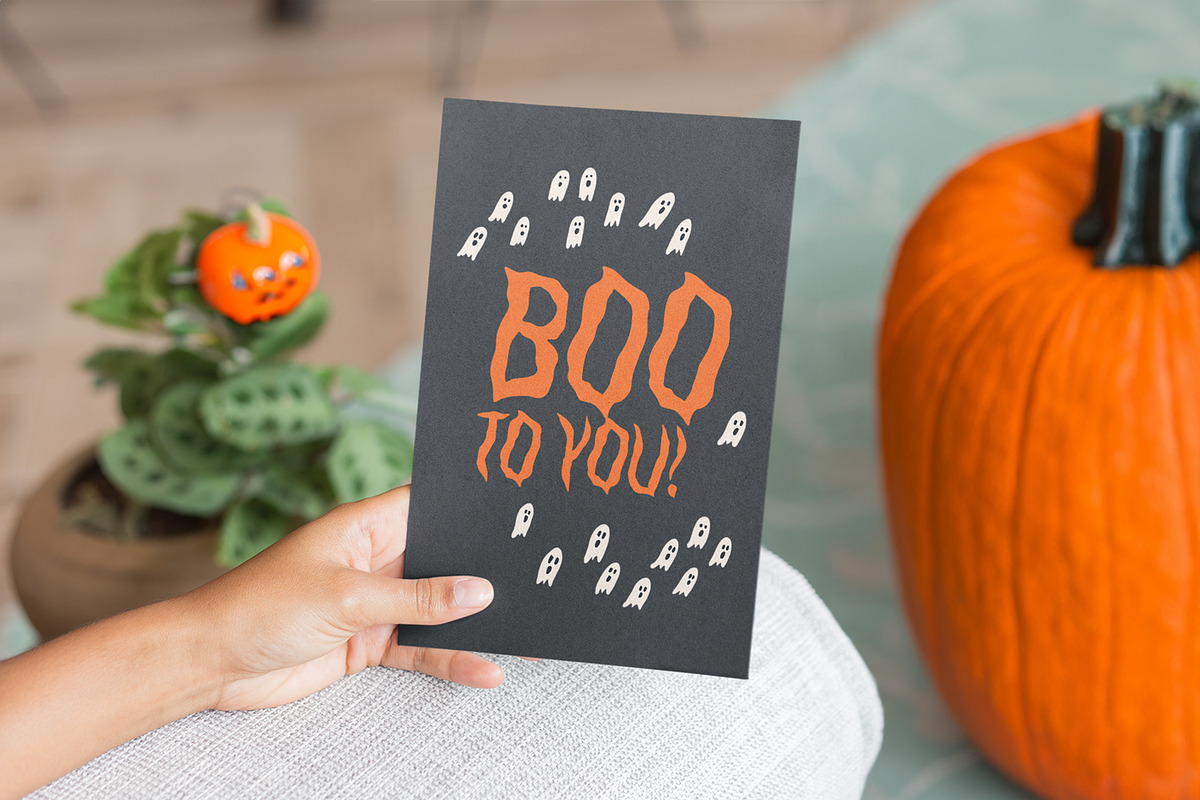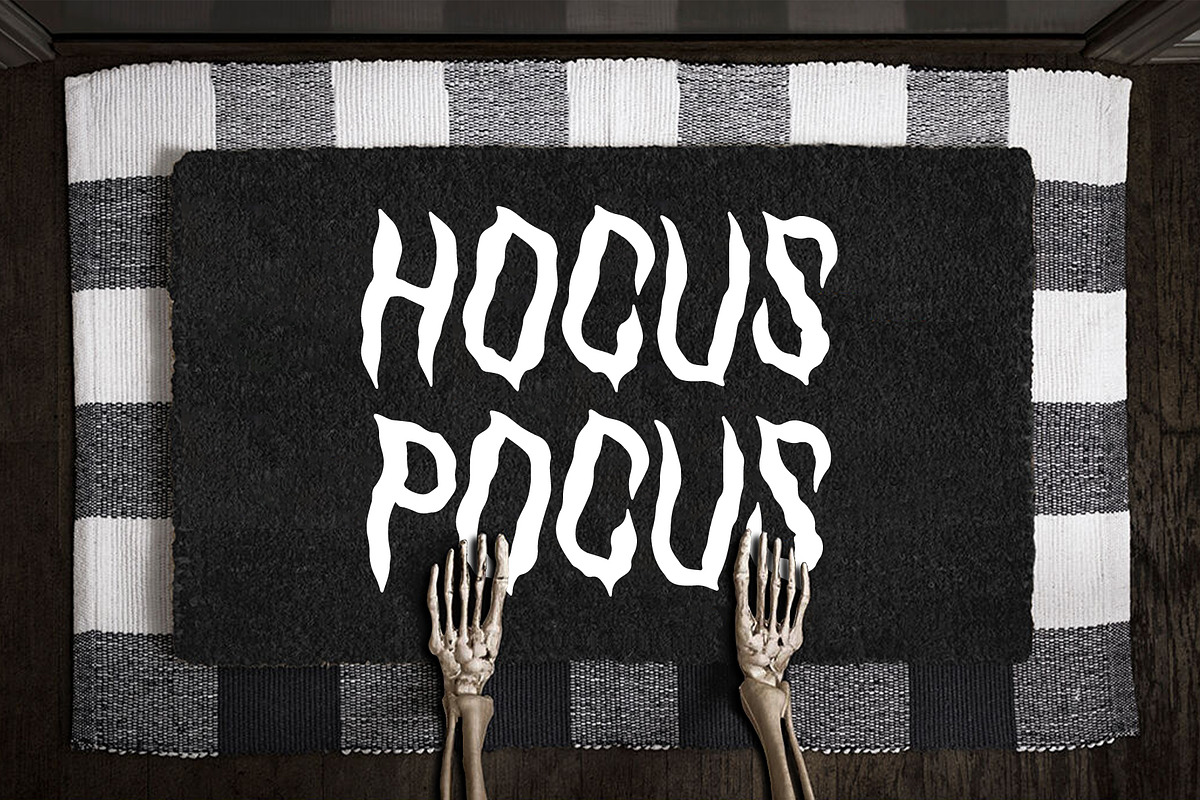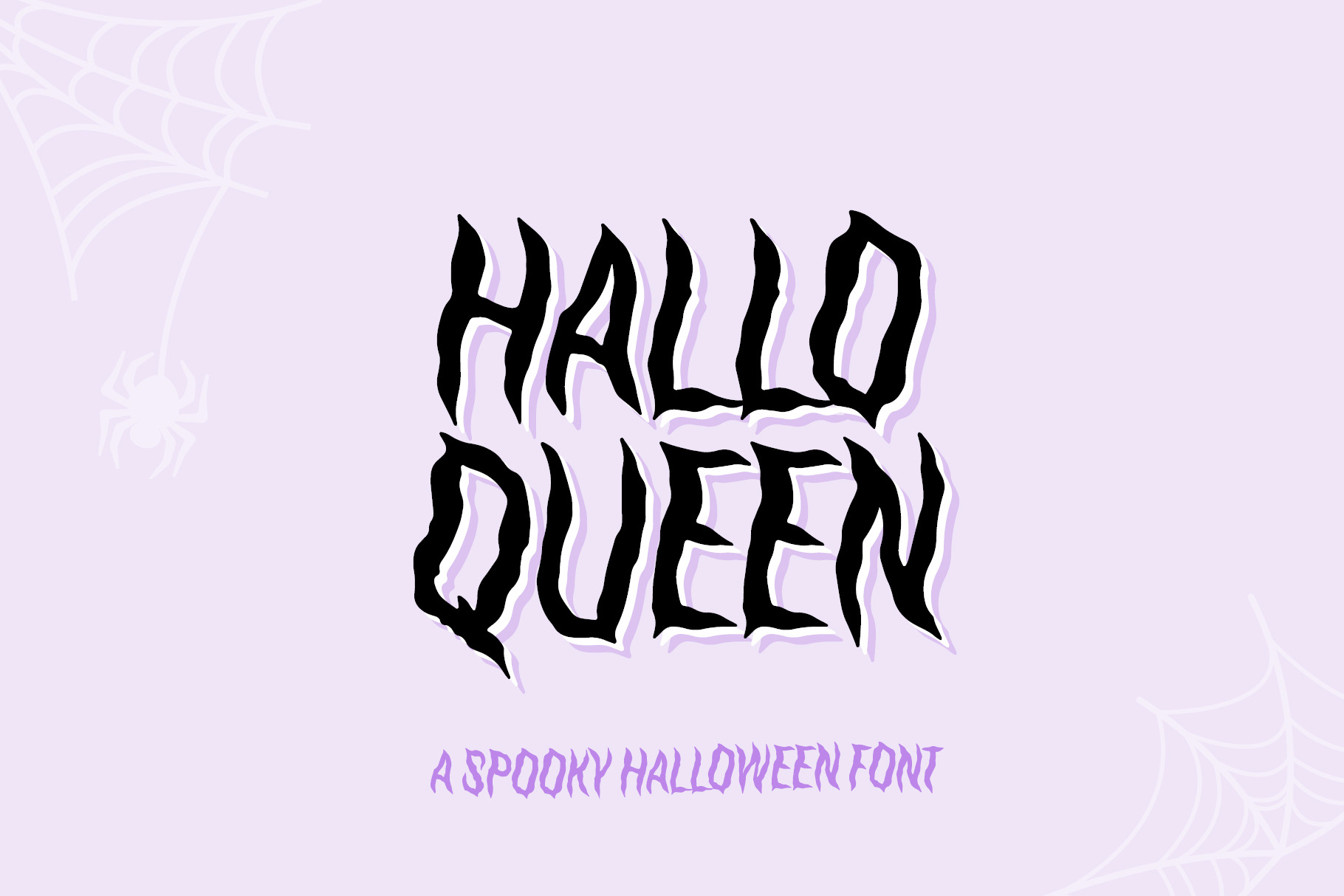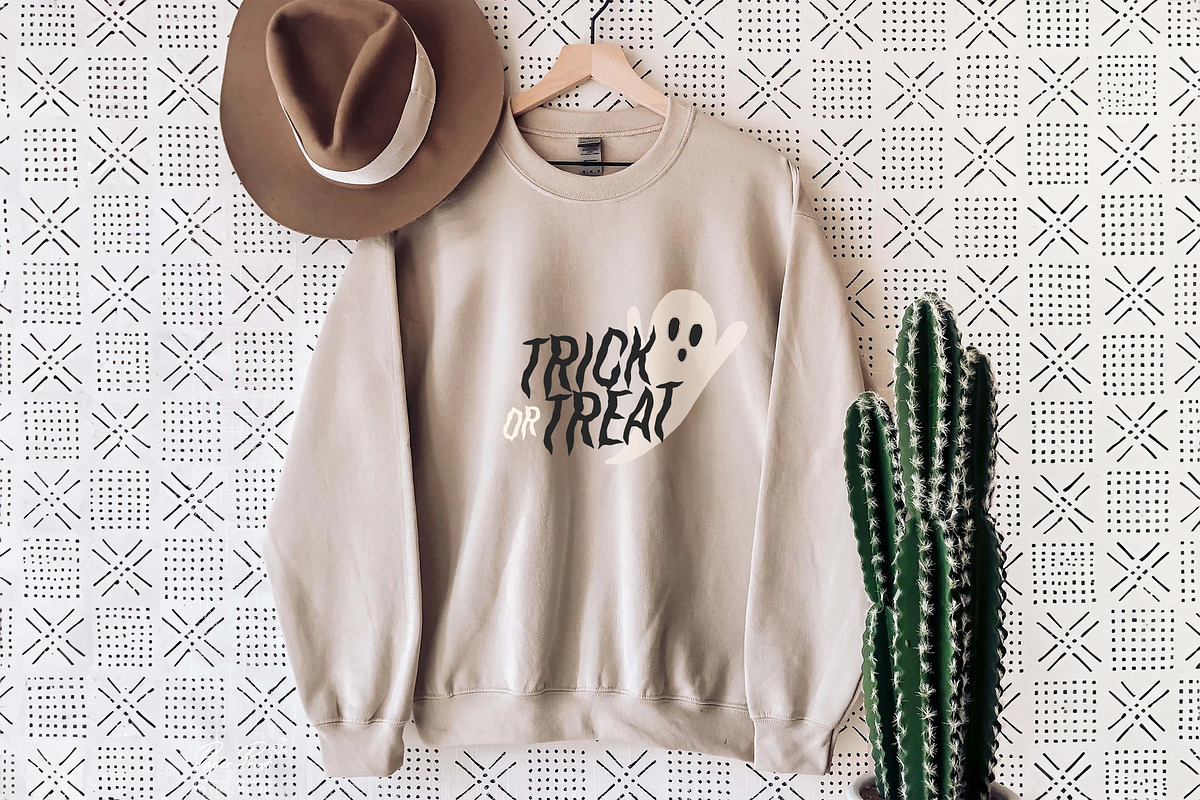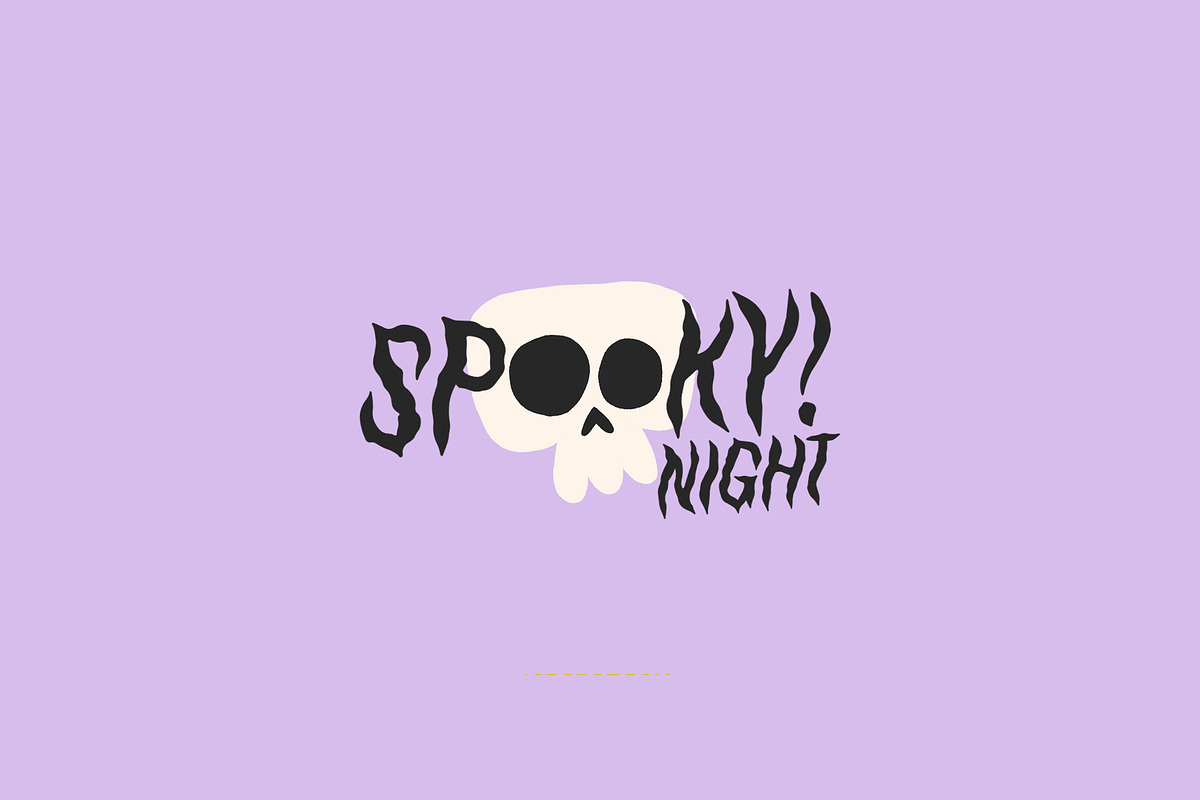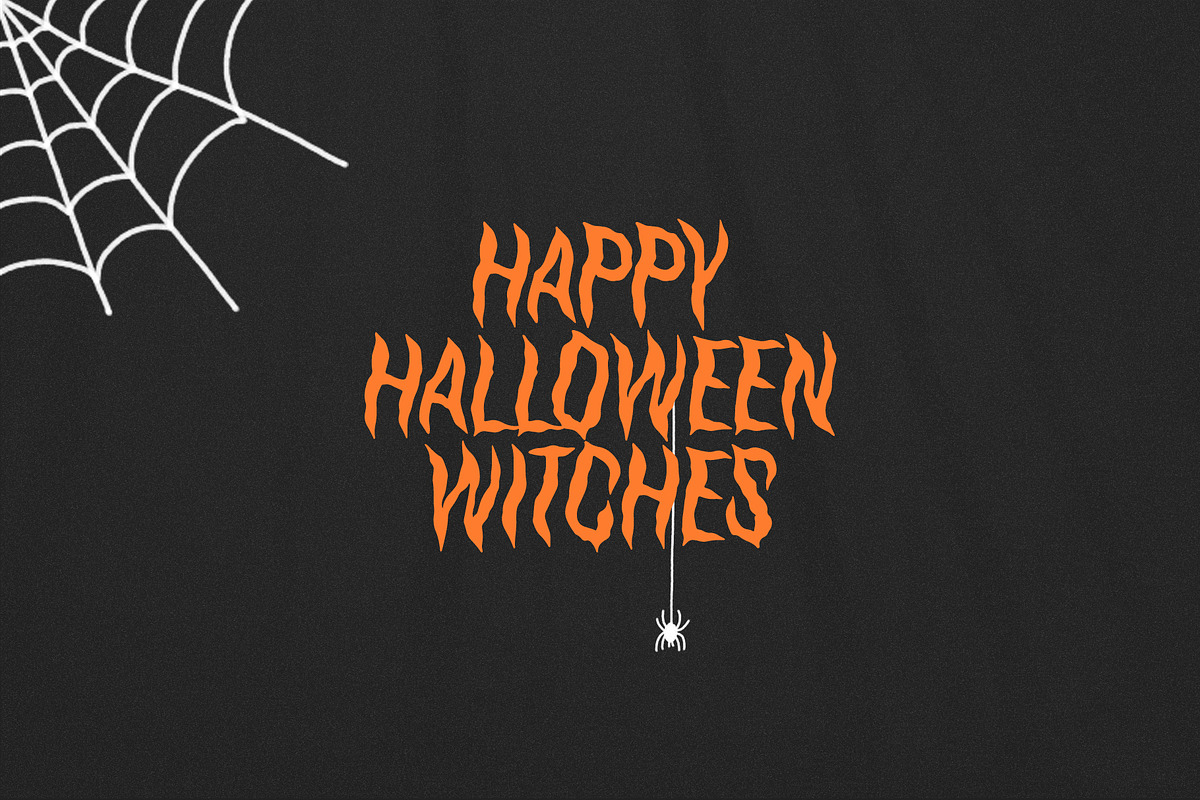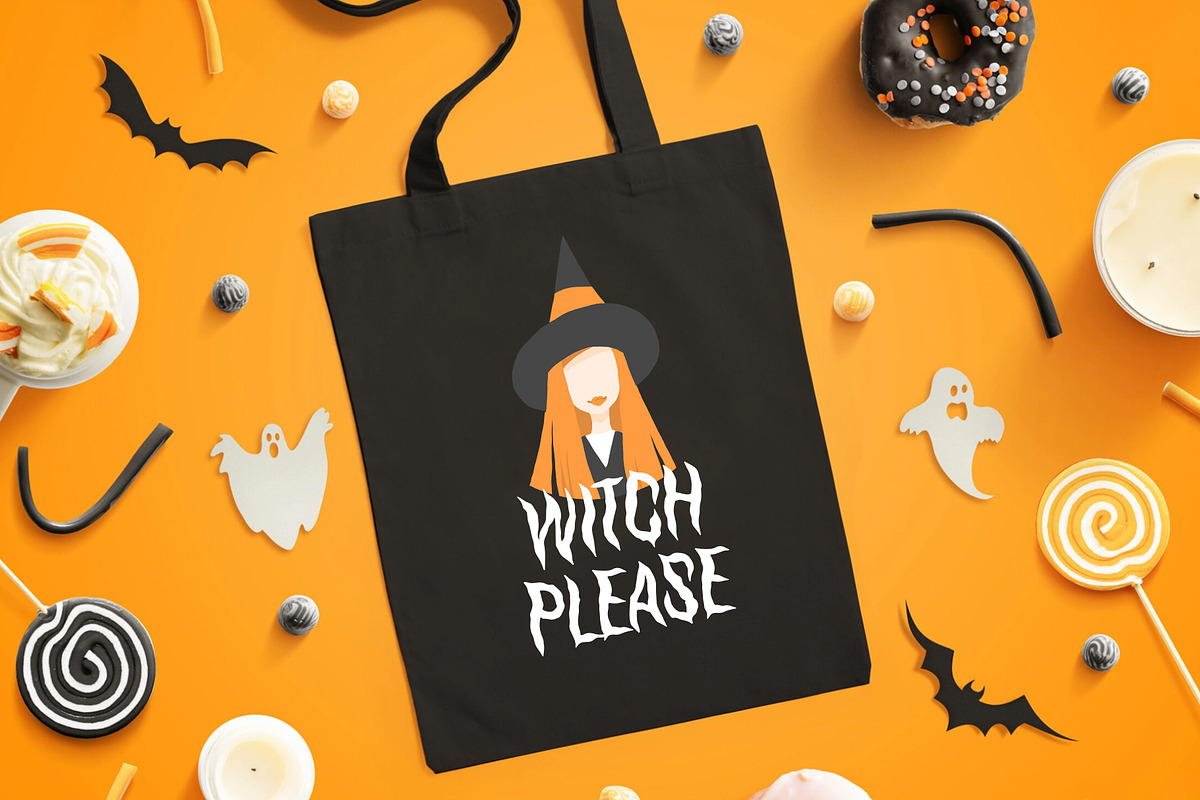
HalloQueen / Spooky Halloween font
HalloQueen Cyrillic will be perfect for halloween lettering, beautiful frame for your home, book covers, greeting cards, logos, marketing, magazines or anything that requires cute handwritten lettering :)